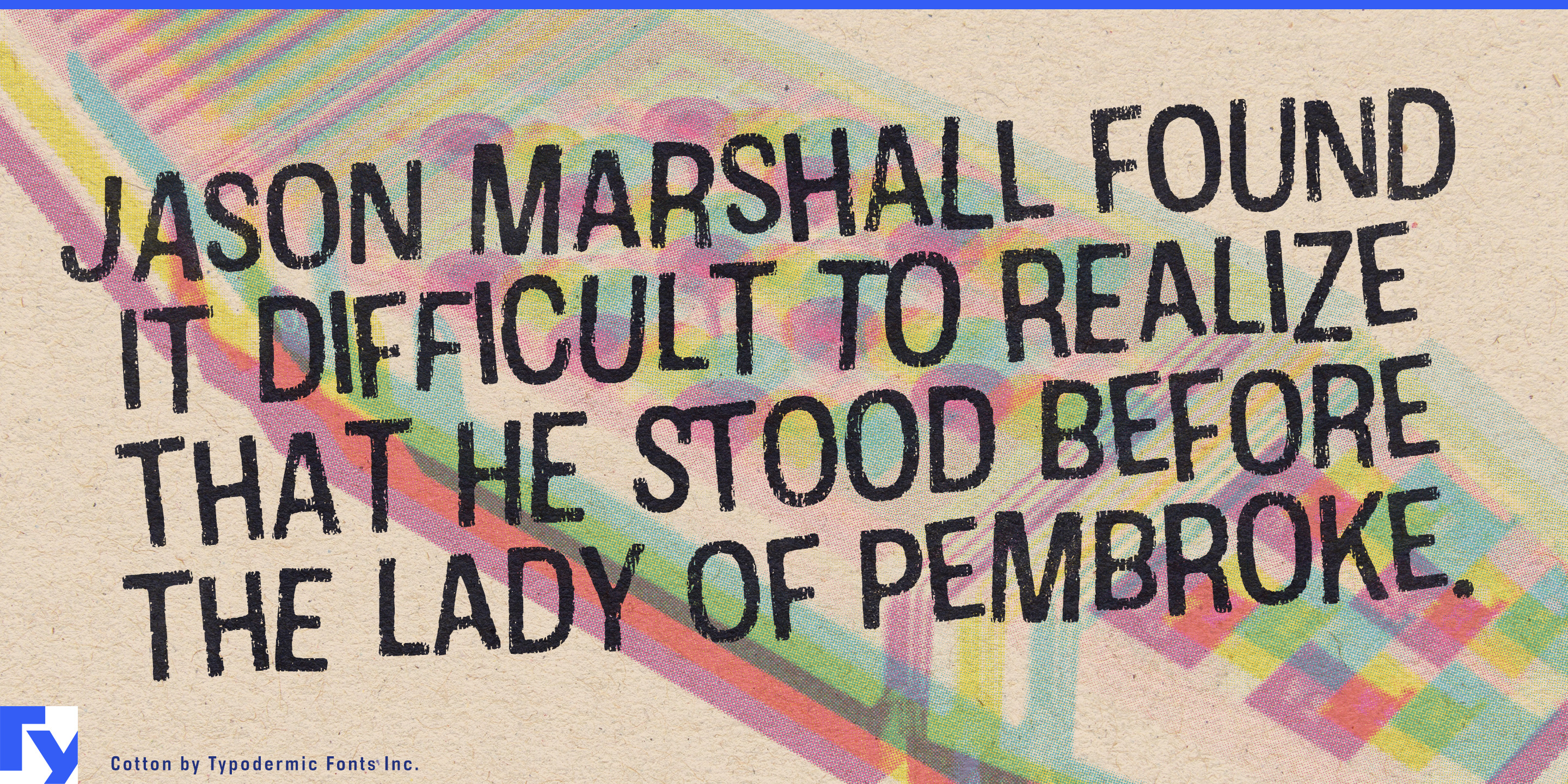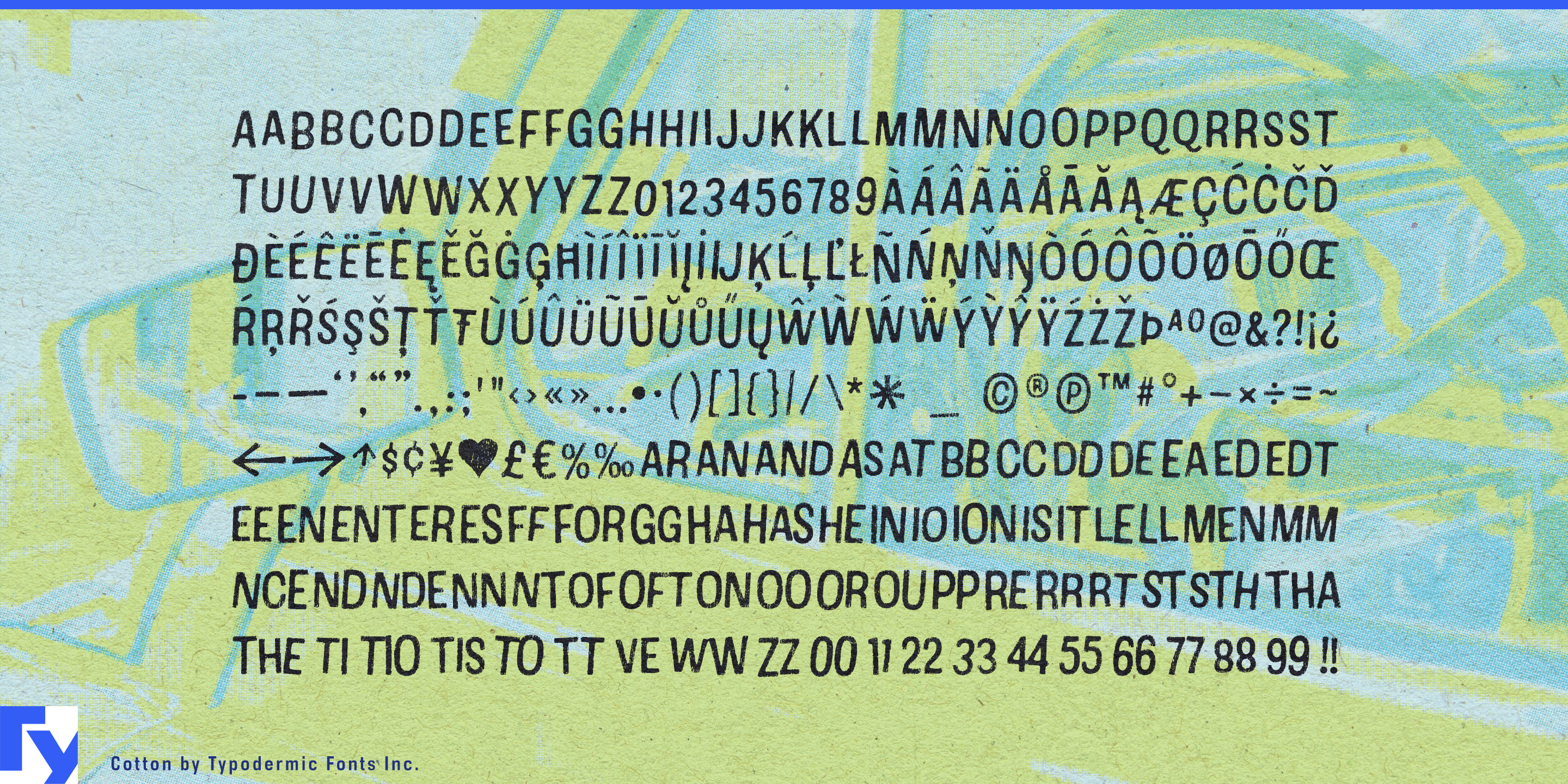
Cotton
Cotton captures the soft, worn-in character of vintage screen-printed lettering, built from the ground up for designers who want authentic texture without sacrificing clarity. Its letterforms began life in another typeface, then were refined and “weathered” using a custom distressing process that included scanned flaking paint from real fabric. The result is an irregular, fabric-like breakup that feels natural—never like a filter slapped on after the fact.
The bouncy, 1960s-inspired shapes give Cotton a friendly energy, while its automatic ligatures add subtle variations to common letter pairs, mimicking the quirks of hand-printing. That makes headlines and logos feel less mechanical and more crafted, whether you’re working on a band poster, a craft beer label, or signage for a boutique.
Cotton supports over 100 Latin-based languages and has been updated for modern use, with clean vertical metrics and consistent spacing for cross-platform reliability. It’s equally at home in retro-themed projects and contemporary branding that needs a human touch.
When you need type that feels warm, familiar, and lived-in—but still works flawlessly in digital and print—Cotton delivers the look of a favorite old tee, ready to wear in any design.